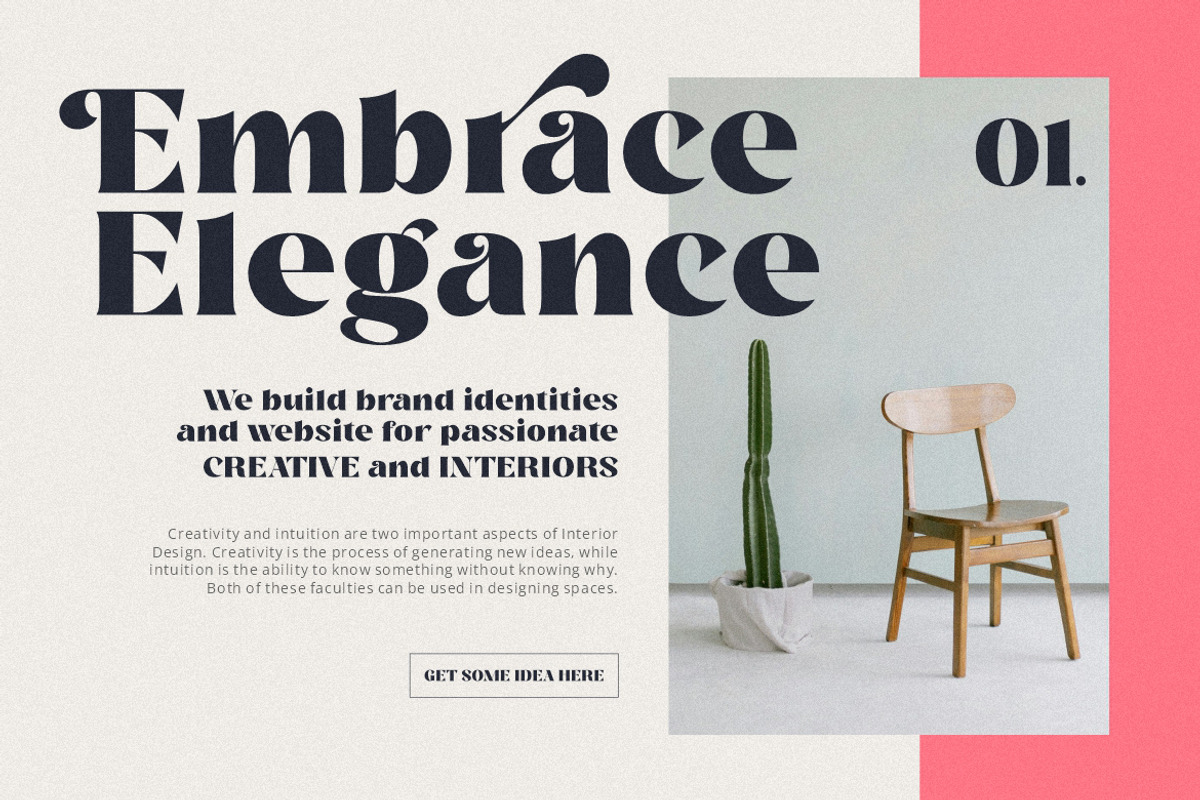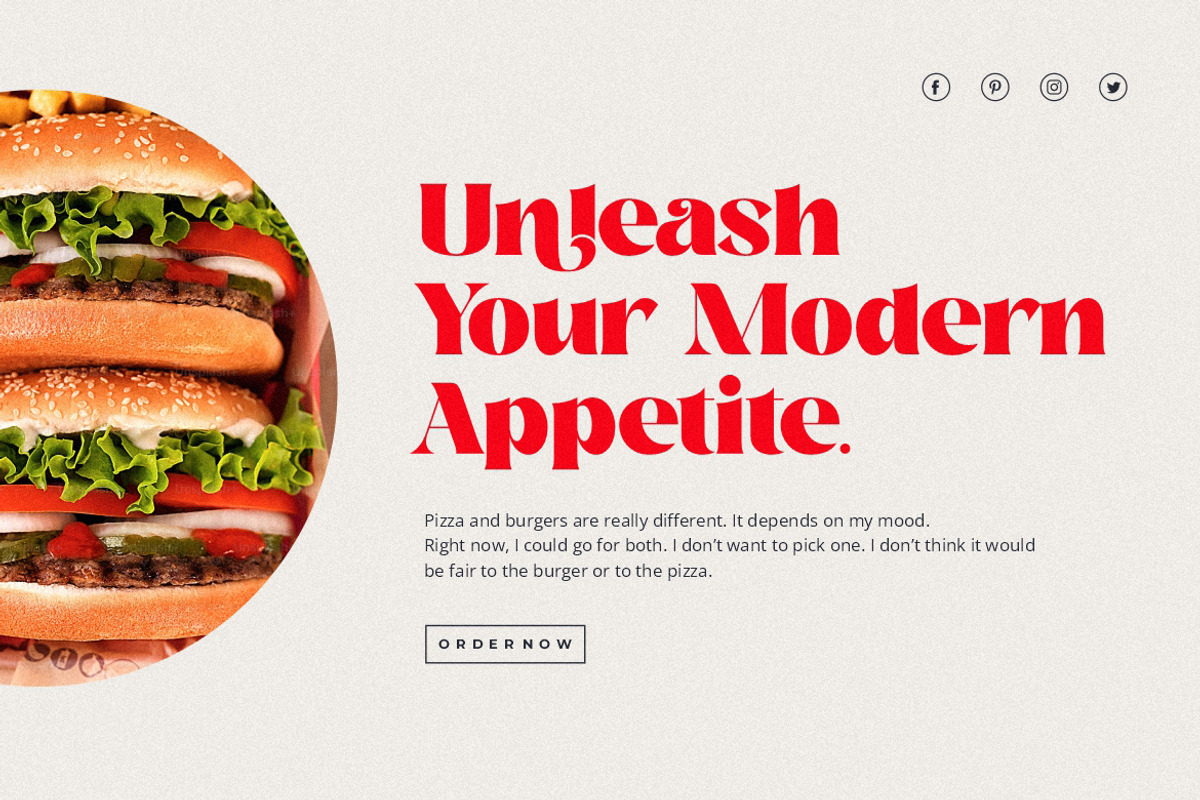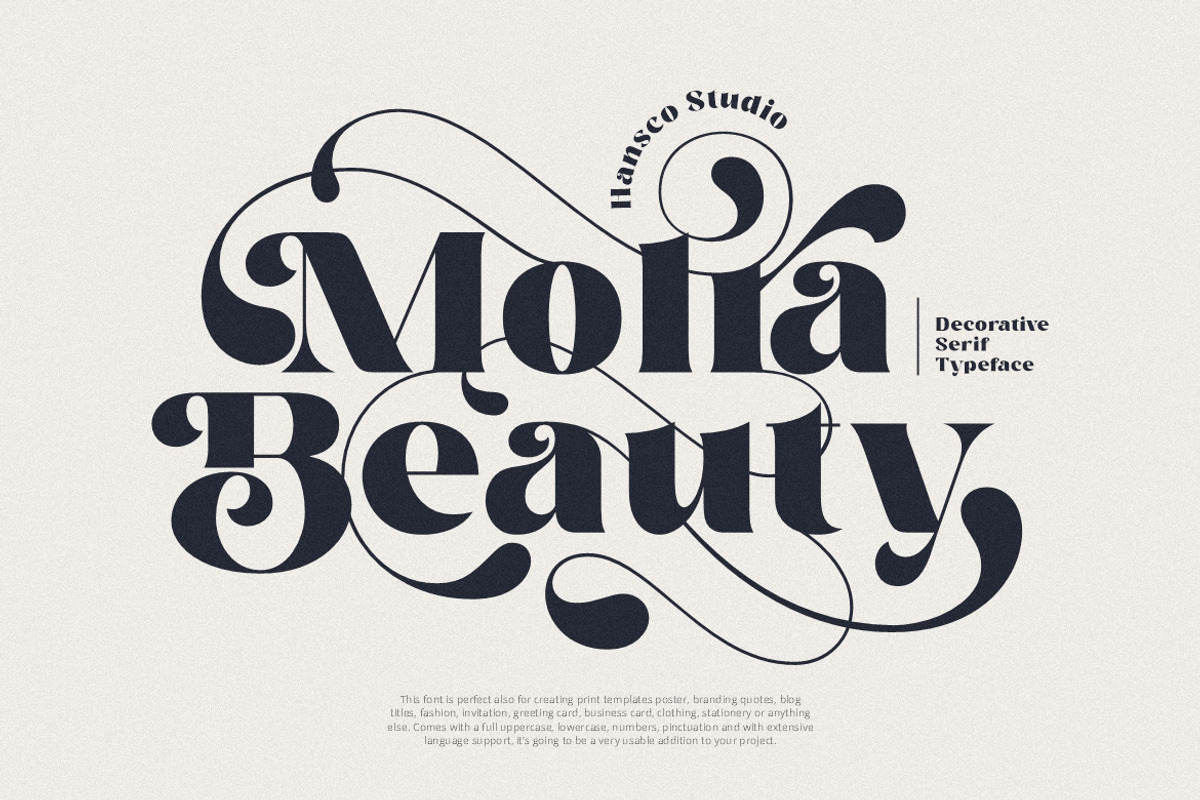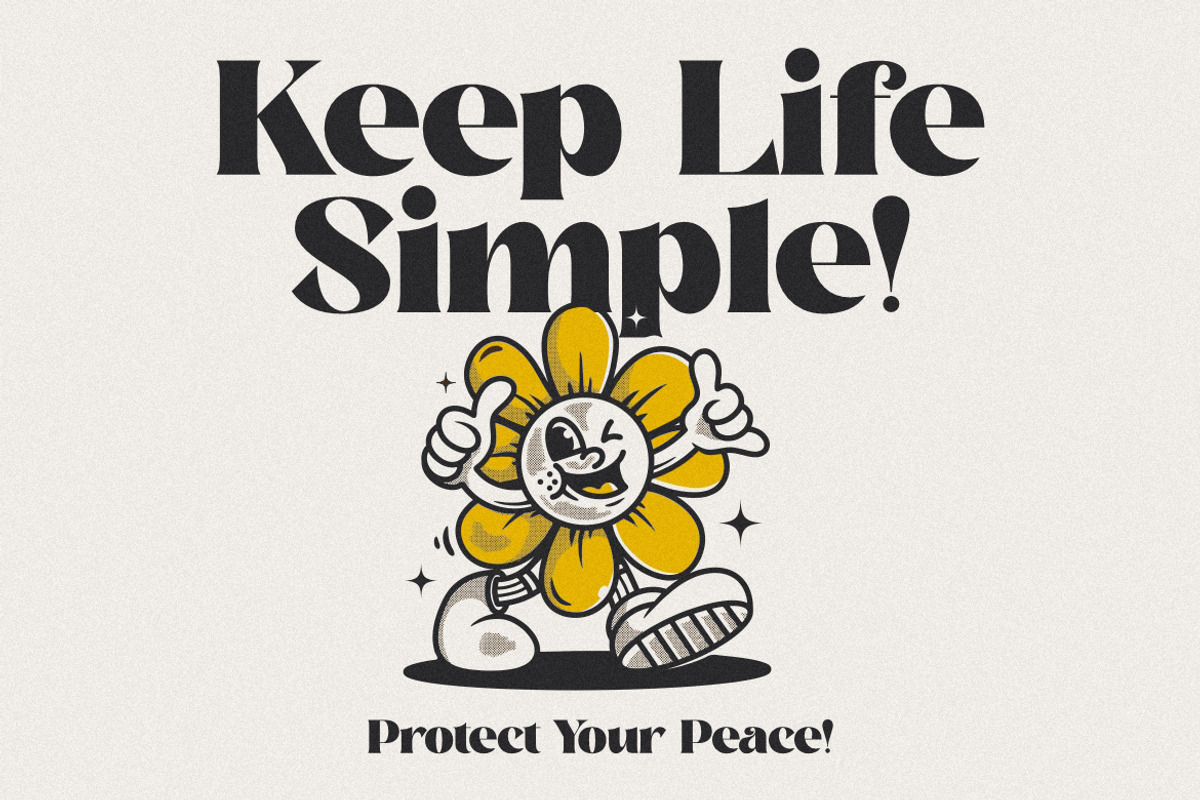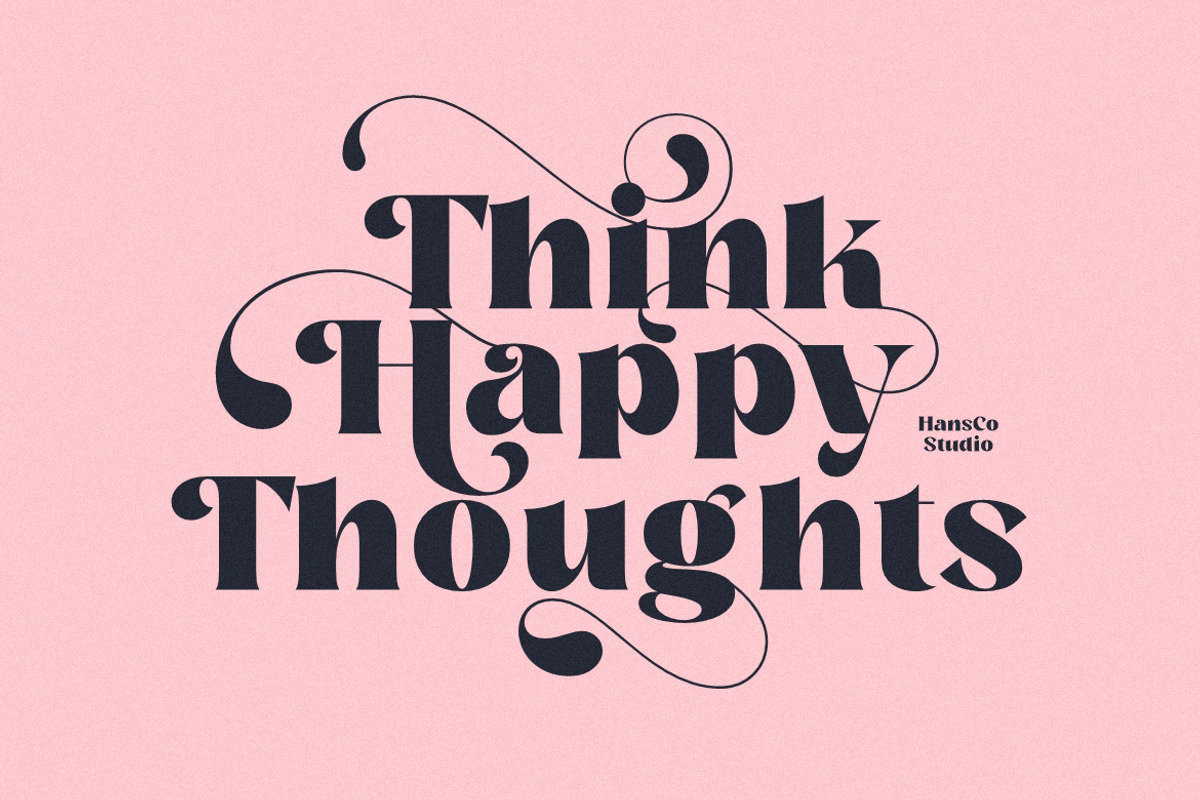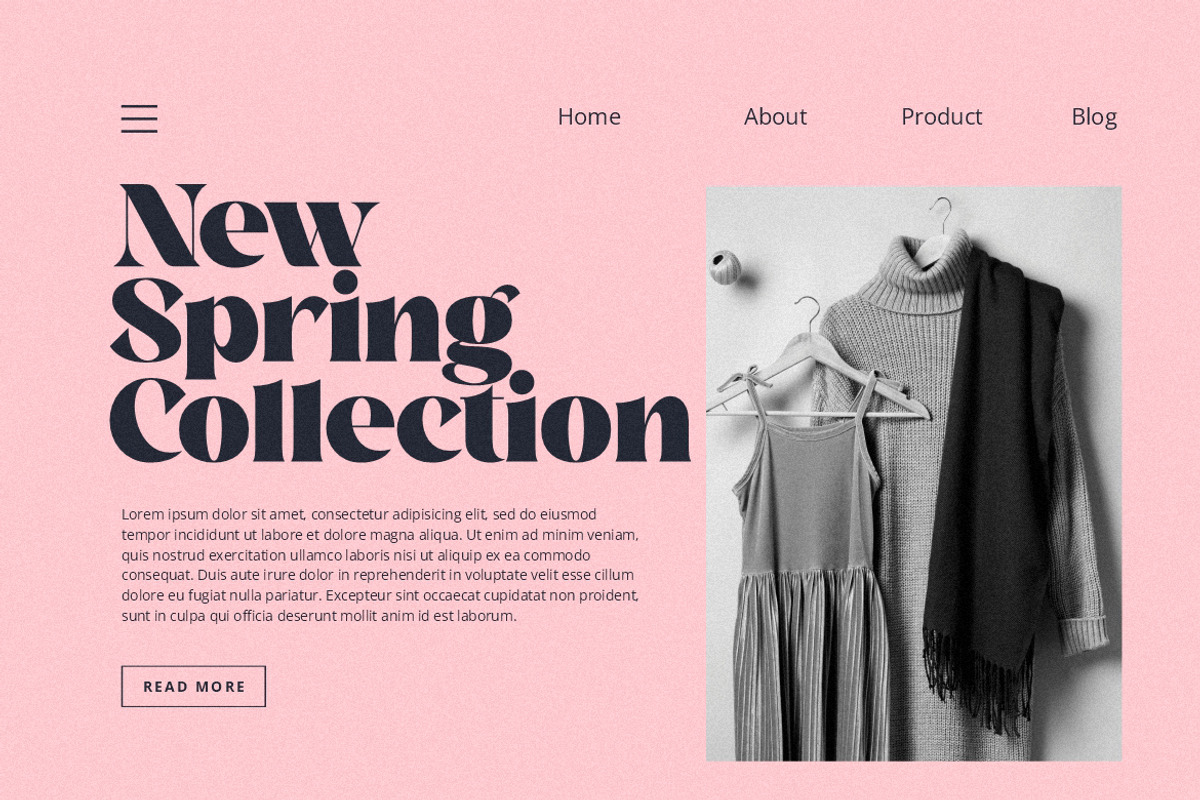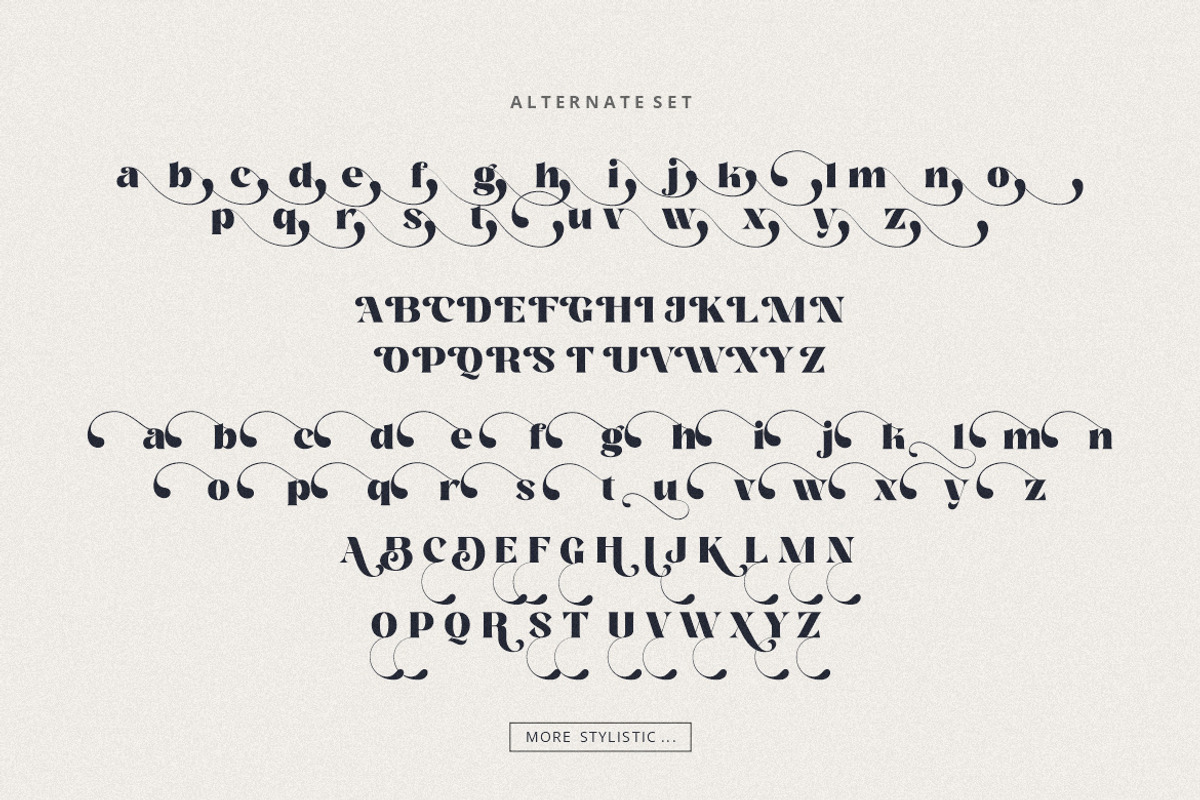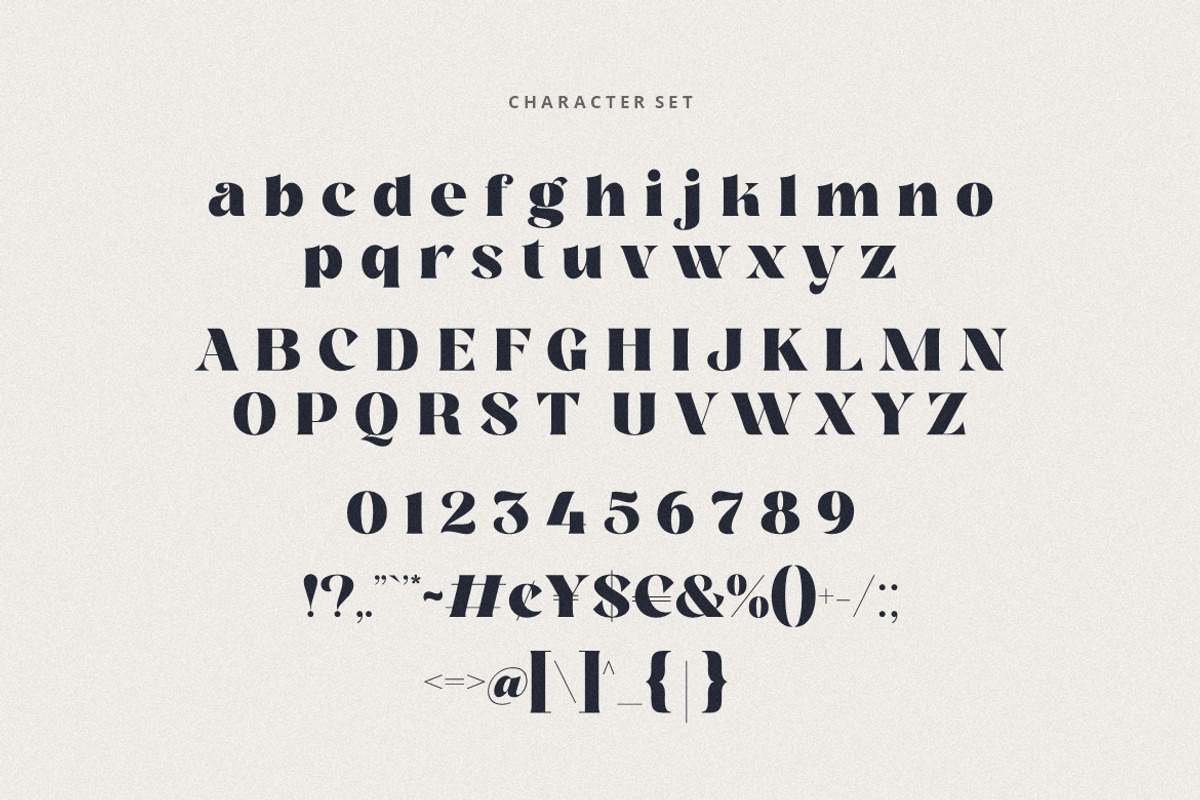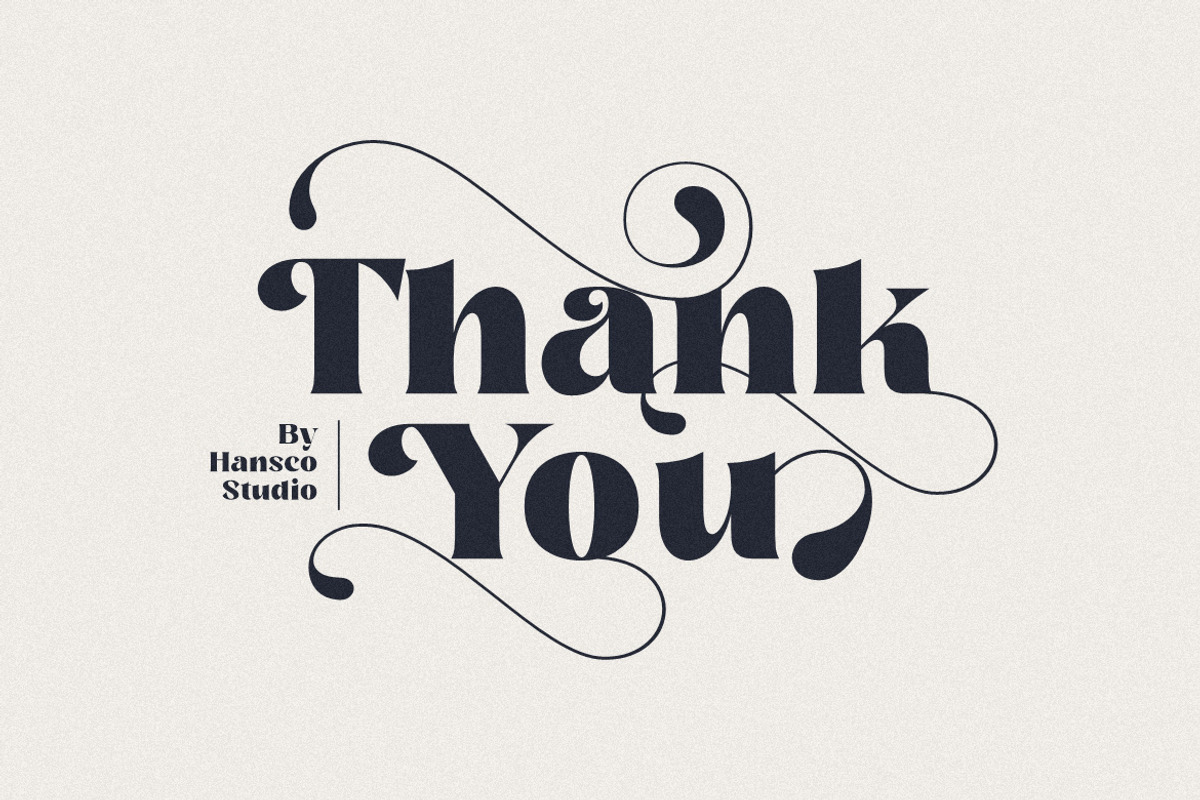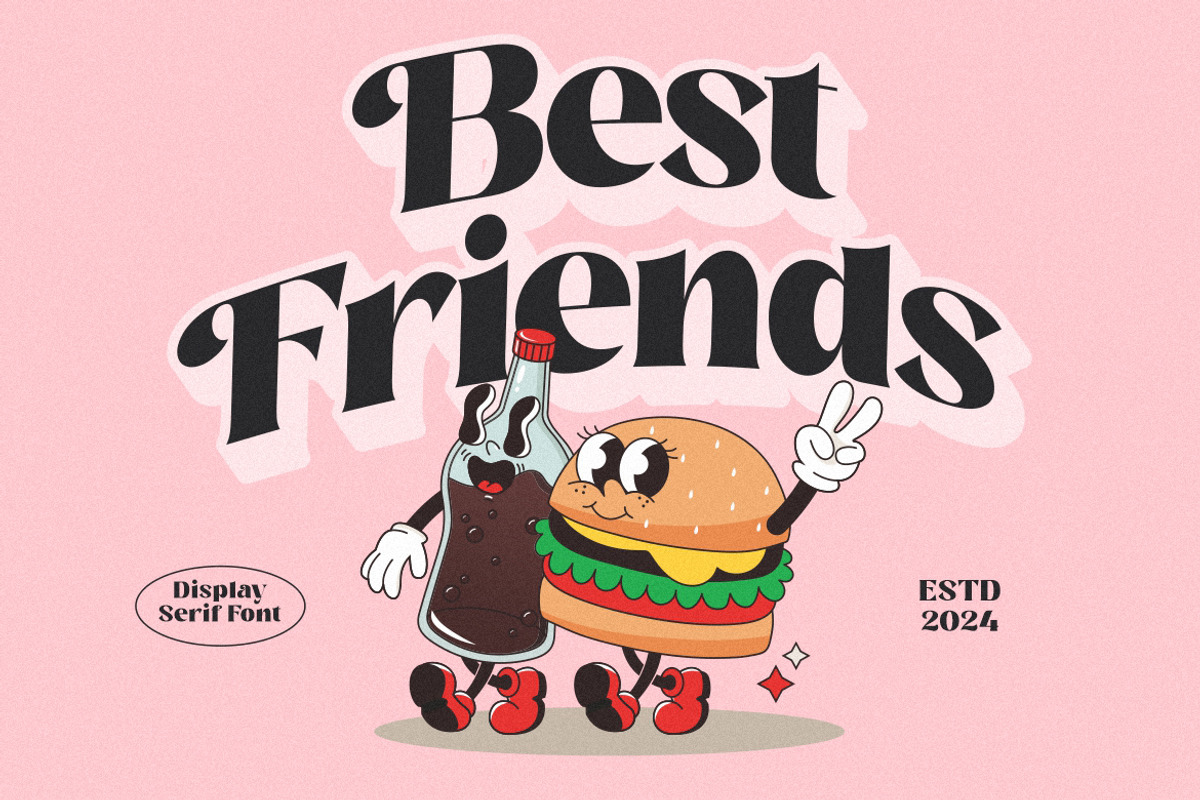
Molra Beauty | Elegant Serif Font
We are proud to present the retro casual with modern style Molra Beauty Font. This font is made by carrying the concept of a fun and chick serif with swash style in some characters, so it is friendly and suitable for application in any project like a logo or brand identity and packaging design projects. You can find alternative characters in this Molra Beauty Font. This font is perfect also for creating print templates like posters, branding, quotes, blog titles, fashion, invitations, greeting cards, business cards, clothing, stationery or anything else. Comes with a full uppercase, lowercase, numbers, punctuation and with extensive language support, it’s going to be a very usable addition to your project. Be a perfect professional in a minute and start creating with this font today!